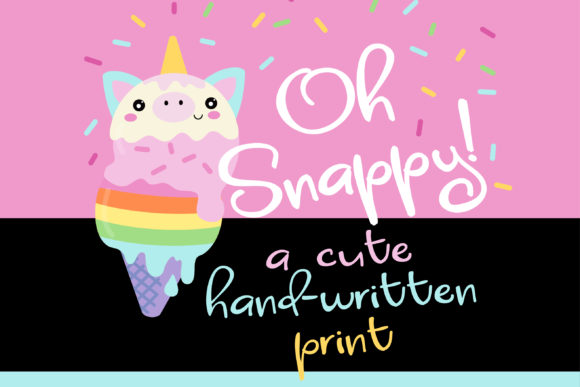
Introducing Oh Snappy!, an enchanting script font family that exudes casual elegance and playful charm. Meticulously crafted by Illustration Ink, this font is a celebration of creativity, designed to add a touch of whimsy and personality to your digital projects.
Embrace the captivating allure of Oh Snappy! with its expressive strokes, smooth curves, and delightful swashes. Each letter dances across the page, inviting you to embark on a journey of visual storytelling. Your designs will radiate with a sense of effortless style, whether you're creating logos, branding, social media graphics, or eye-catching headlines.
Oh Snappy! effortlessly blends the classic beauty of calligraphy with a modern twist, making it a versatile choice for a wide range of design projects. Enchant your audience with wedding invitations that exude romance, create stunning posters that pop with personality, or design social media posts that are sure to captivate your followers.
With Oh Snappy! at your fingertips, you can effortlessly express your creativity and make a lasting impression. Let your designs shine with a touch of playfulness and sophistication.
Unleash the magic of Oh Snappy! today and elevate your designs to new heights of visual delight.